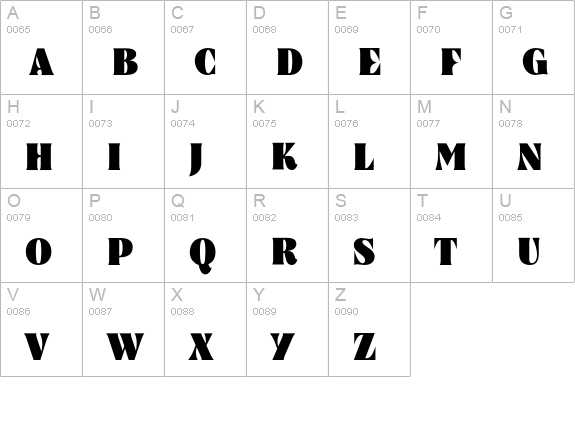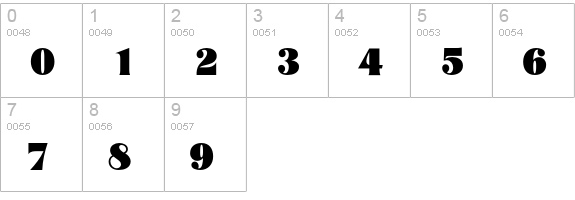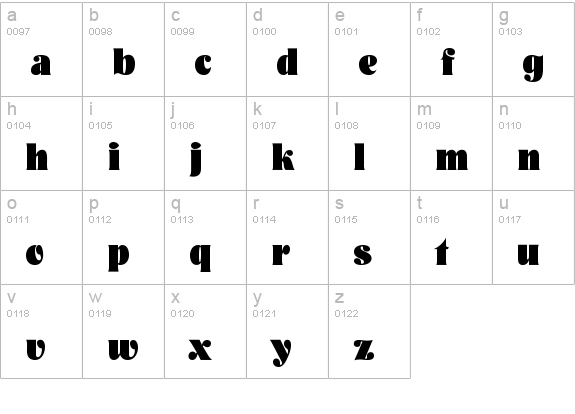
Nashville-Hvy Font Details
Introducing Nashville-Hvy font, a bold and impactful typeface that exudes strength and modernity. This versatile font is perfect for adding a powerful touch to your designs, whether it be for posters, logos, headlines, or branding materials. With its strong and sturdy appearance, Nashville-Hvy font commands attention and makes a lasting impression. The best part? Nashville-Hvy font is completely free to download at FontsMarket.com. So, elevate your design projects with this striking font without breaking the bank. Don't miss out on this fantastic opportunity to enhance your creations with the sleek and stylish Nashville-Hvy font. Download it now and let your designs stand out from the crowd!